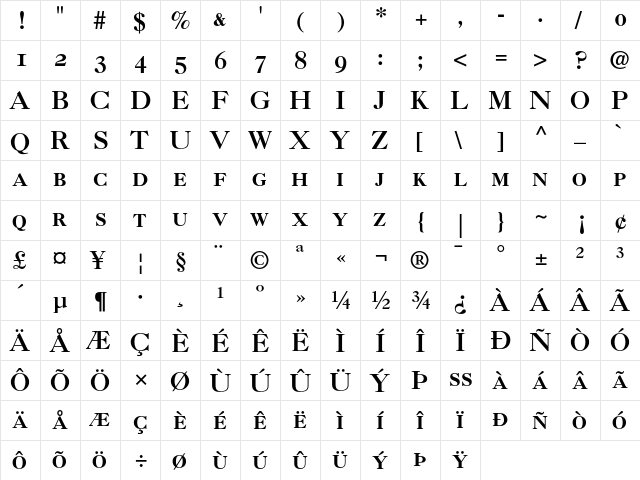
Caslon 3 Roman Small Caps & Oldstyle Figures
Design Context for Caslon 3 Typeface
Caslon 3 carries the refined structure of traditional serif typography, with bracketed terminals and considered proportions that communicate credibility and craft.
Pro Tip: Use Caslon 3 for editorial body copy and considered headline work. Pair with a neutral sans for UI elements or captions to create a classic hierarchy.